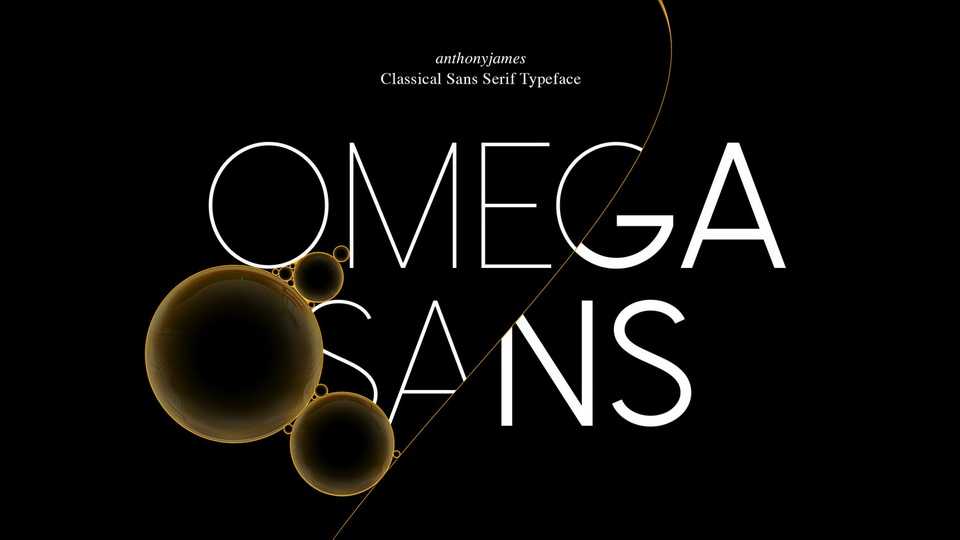
Download Omega Sans font, a classic sans serif typeface, which is just as versatile when applied to sub-headings and/or text. Housing minimal anchor points and well-balanced Beziér curves, aesthetics contain sharper geometrics, than basic sans serifs.
Designer: Anthony James